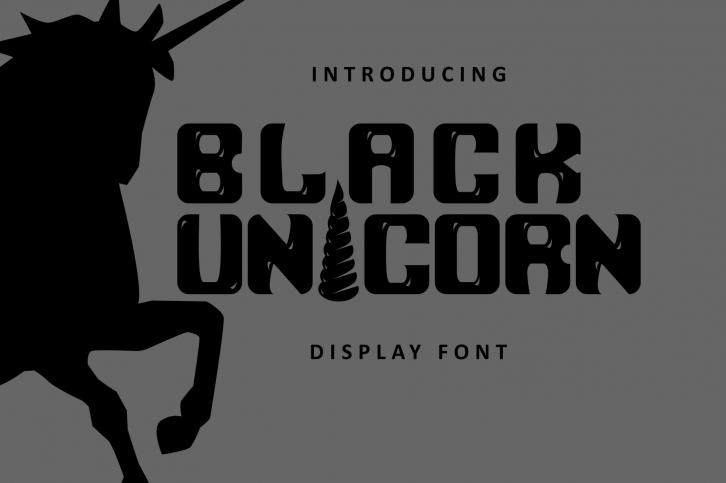
Black Unicorn is a great font that was designed by al-fareaniy. Imagine the amount of combinations you can create using this font! The archive is 11.99 MB and it was released on July 24, 2020. Black Unicorn looks beautiful on wedding invitations, greeting cards, logos, posters, labels, t-shirt designs, logos, business cards and is perfect for use in ink or watercolor works, fashion, magazines, packaging and food menus, children's books and more!